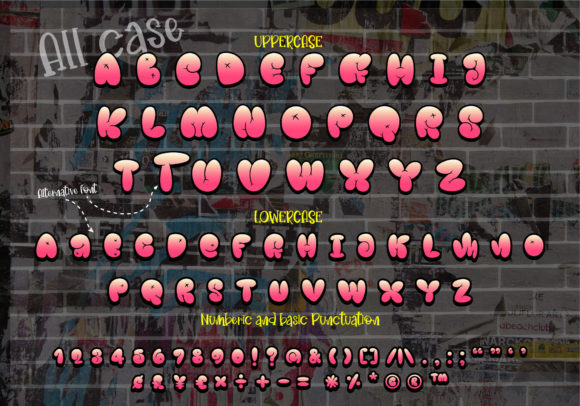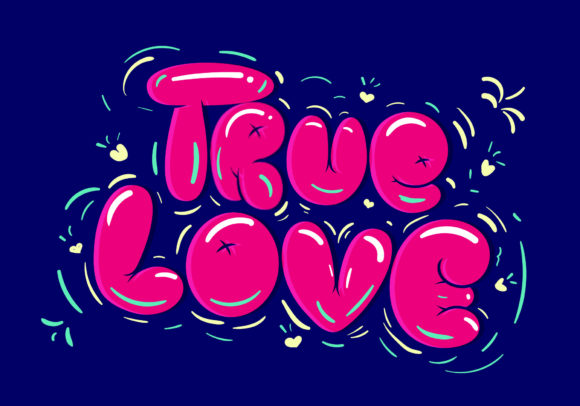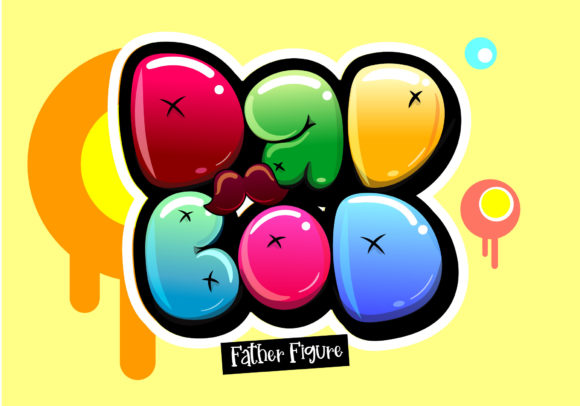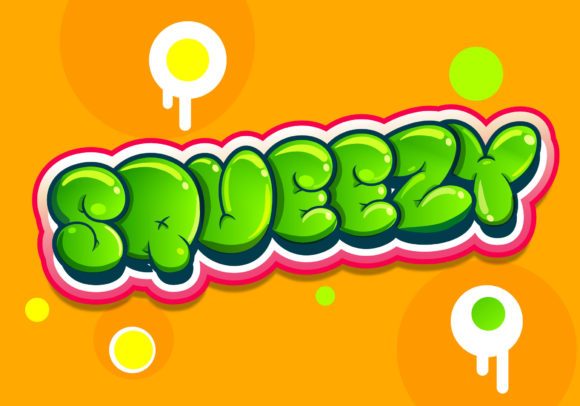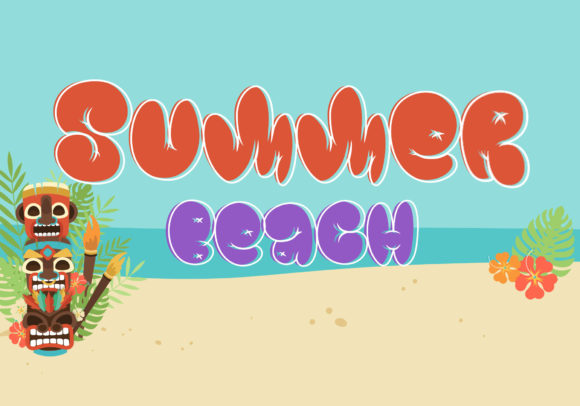
Introduction to Big Bloom Font
Big Bloom is a cool looking and bubbly display font.
It embodies playfulness and authenticity and is the perfect choice for any children activity or school project .
Key Features of Big Bloom Font
Why Choose Big Bloom Font?